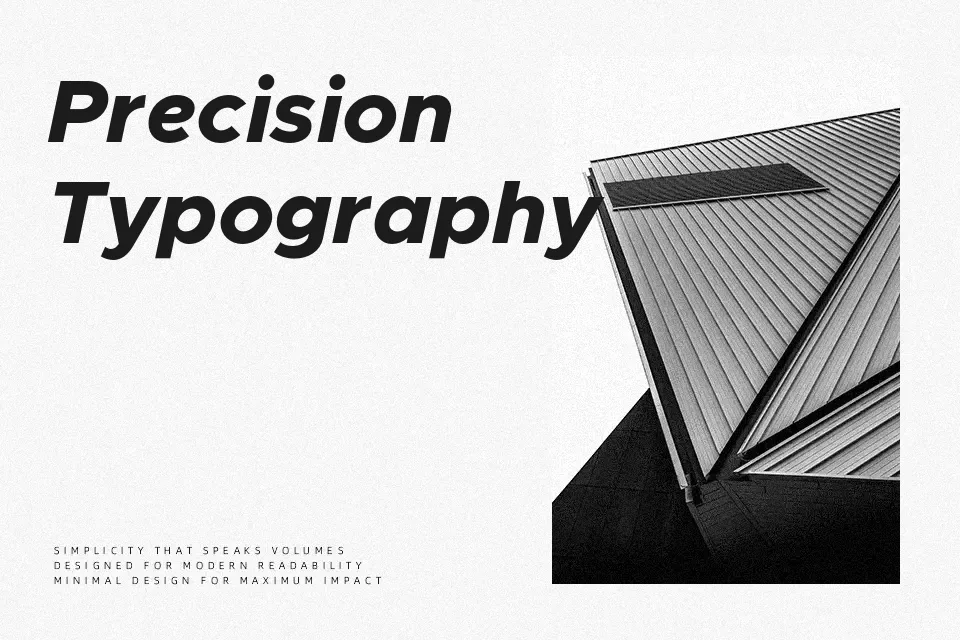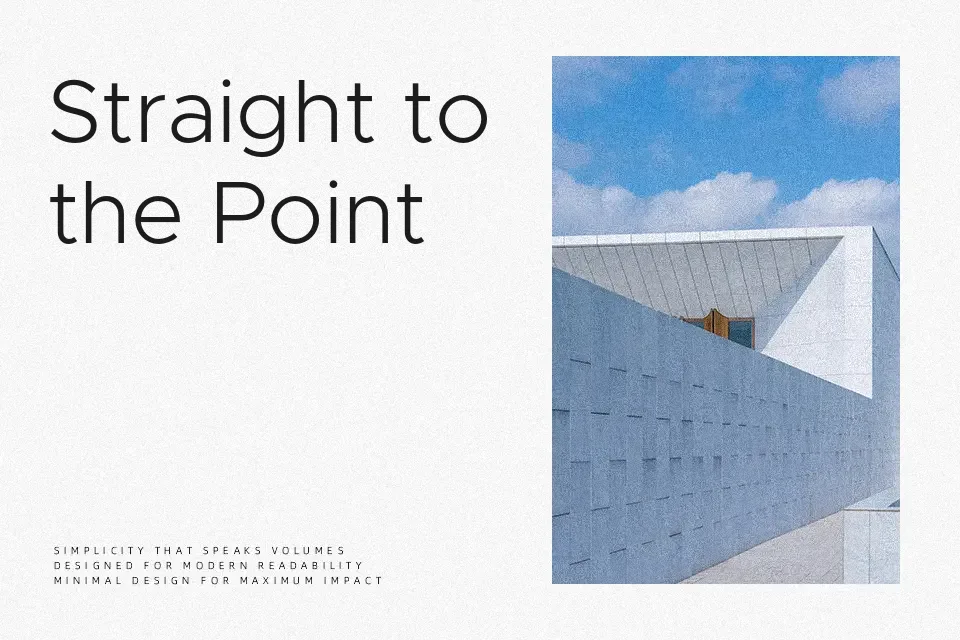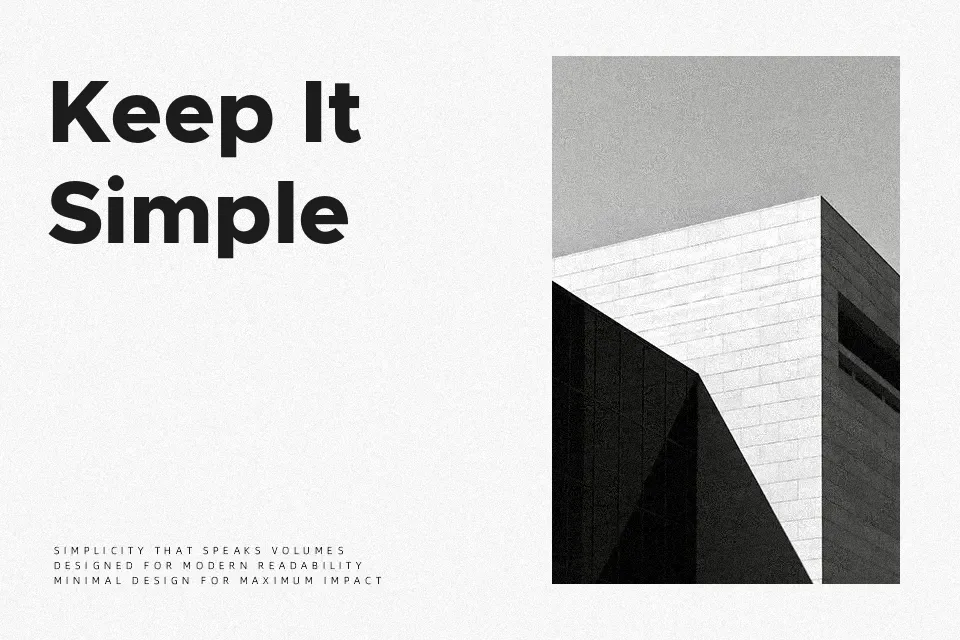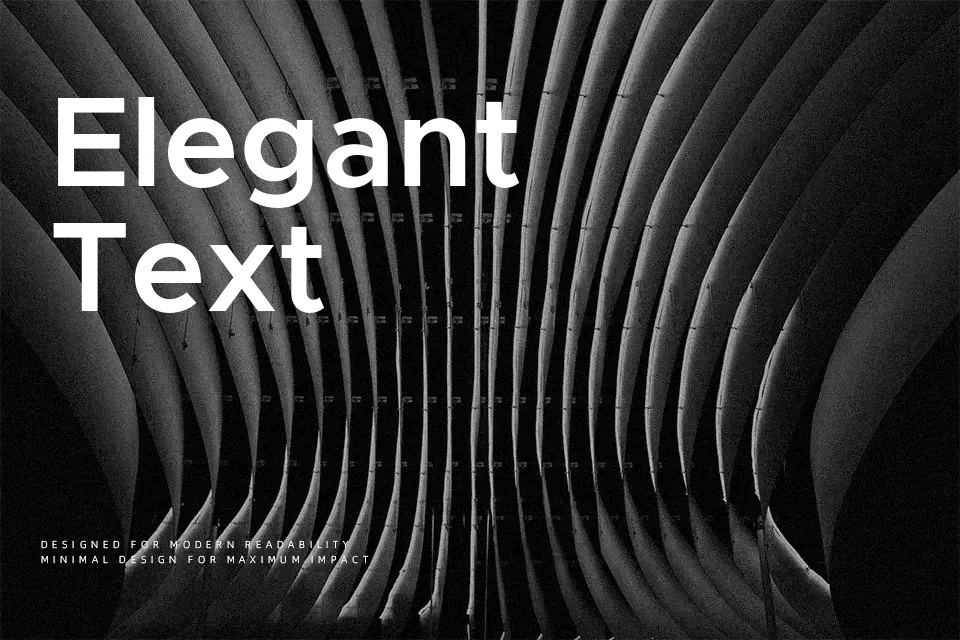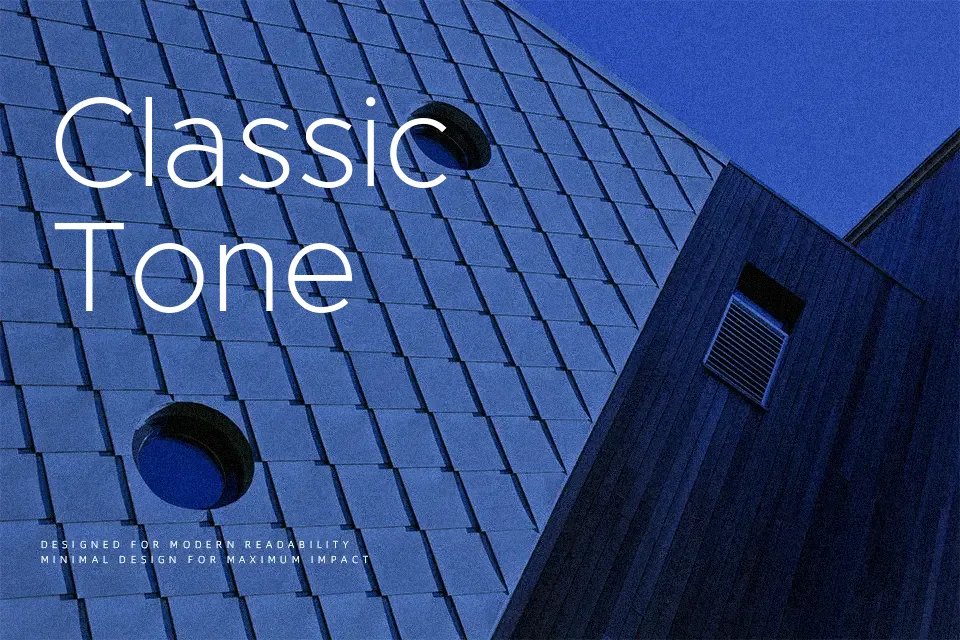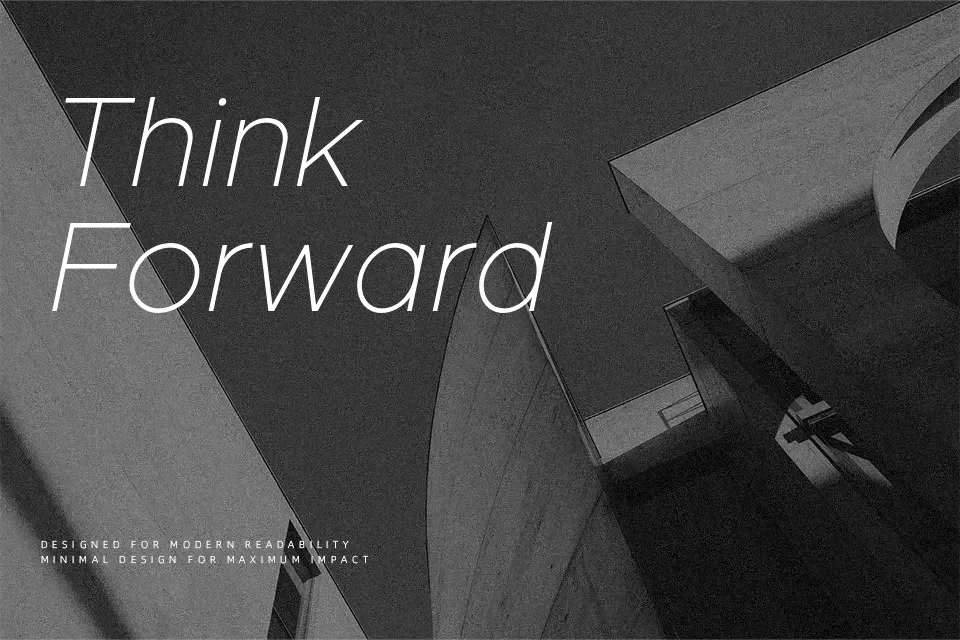
Metropolis Font
If you need a contemporary sans-serif that prioritizes pure clarity and modern aesthetics, the Metropolis Font Family delivers beautifully. Created by designer Chris Simpson and released as open-source, this geometric typeface draws heavy inspiration from classic modern gothics like Proxima Nova and Gotham, but features distinct round dots and generous spacing. Its balanced, circular counters and uniform stroke weights create an incredibly clean, objective texture that scales perfectly across digital devices.
Because of its highly legible and neutral structure, this typeface excels in data-heavy UI design, sleek corporate websites, and modern startup branding where functional clarity is essential. Conversely, its strictly mechanical and objective geometry means it is not suitable for organic, vintage-inspired packaging or romantic event stationary, as it will look far too clinical and detached. It is a brilliant, open-source workhorse for digital interfaces.
– clean UI design
– modern startup branding
– data-heavy dashboards
– contemporary web typography
– vintage-inspired packaging
– romantic event stationary
– whimsical children’s books
Perfect for body text, branding, and headline, with a clean and geometric style.